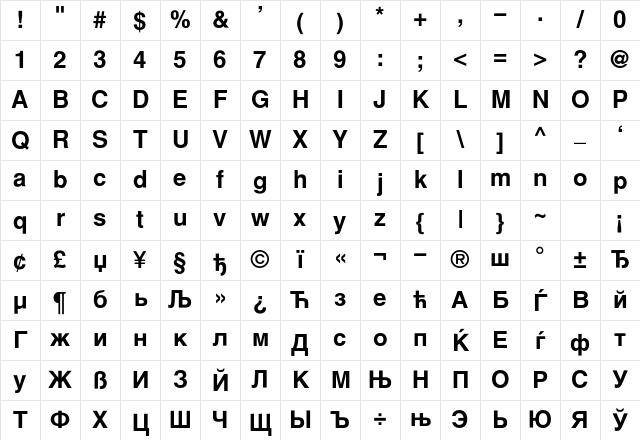
HelveticaCyrillicBold Regular
Complete HelveticaCyrillicBold Regular glyph index. Displaying only characters natively supported by HelveticaCyrillicBold Regular font.
Design Context for HelveticaCyrillicBold
HelveticaCyrillicBold is a composed and adaptable typeface that performs quietly and consistently across a wide range of design contexts. Its bold stroke weight gives it real presence on the page.